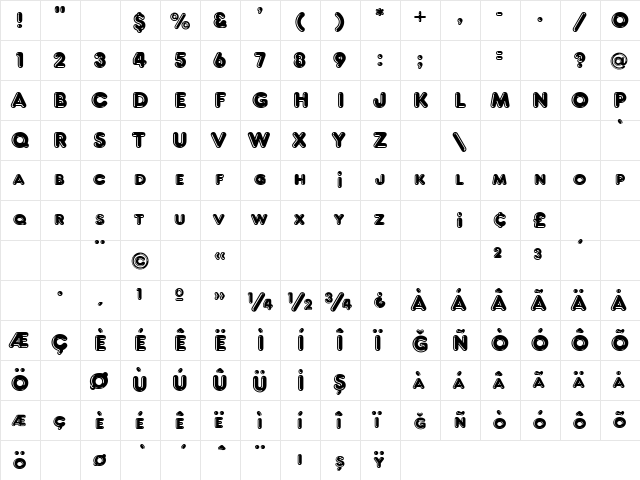
TR Frankfurter Hlt ITCNormal
Design Context for TR Frankfurter Hlt Typeface
TR Frankfurter Hlt offers clean, dependable letterforms without strong stylistic allegiance, making it a practical choice for designers who need flexibility.